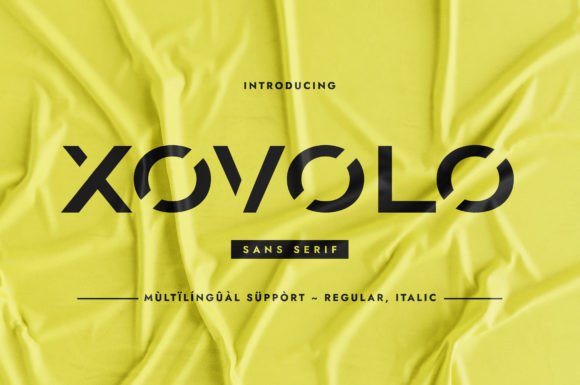
Introducing Xovolo: The Epitome of Minimalist Beauty in Digital Design
In the realm of modern digital design, simplicity reigns supreme. Clean lines, open spaces, and refined typography create a visual experience that is both captivating and timeless. Xovolo, our meticulously crafted sans serif font, embodies this minimalist ethos, offering a symphony of elegance and functionality.
Born from the creative minds at Minimalistartstudio, Xovolo is more than just a font; it's an expression of artistic vision. Its wide and airy letterforms exude a sense of spaciousness, inviting the reader to immerse themselves in the content without feeling overwhelmed. The strokes, precisely executed with a touch of human warmth, evoke a sense of authenticity and connection.
As a versatile chameleon in the world of typography, Xovolo effortlessly adapts to a myriad of creative projects. Whether you're designing a sleek website, crafting an eye-catching logo, or creating marketing materials that leave a lasting impression, Xovolo rises to the challenge. Its inherent minimalism allows it to seamlessly integrate into any design aesthetic, enhancing the message you want to convey without overpowering it.
With Xovolo as your typographic ally, you'll discover a world of possibilities. This font is the perfect choice for projects that require a touch of sophistication and clarity. Unleash your creativity and craft designs that resonate with a modern audience, leaving them inspired and engaged.